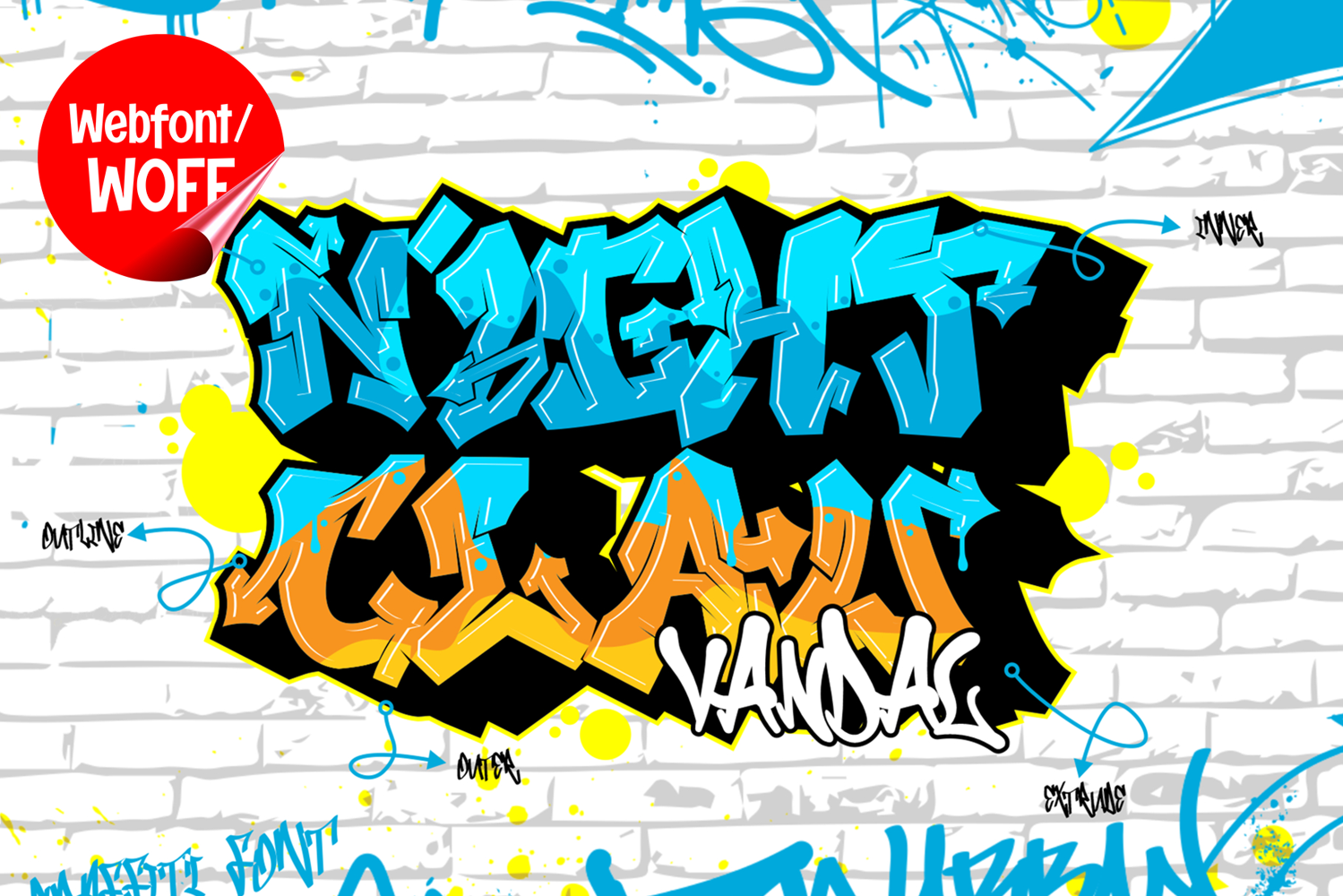
Nightclaw Vandal | Wild Graffiti Webfont for Urban Street
Nightclaw Vandal is a wild graffiti webfont designed to bring raw underground street energy and rebellious urban aesthetics into modern website design. Inspired by wildstyle graffiti, spray-paint murals, and underground tagging culture, this font features aggressive letterforms and dynamic movement that create a bold and eye-catching visual identity. It is an excellent choice for projects that aim to deliver authentic graffiti visuals with strong street-style character and high visual impact.
Nightclaw Vandal includes a complete set of uppercase characters designed with wild graffiti aesthetics. The letterforms feature exaggerated curves, sharp angles, and expressive strokes that create an energetic and rebellious street-art appearance inspired by urban wall murals and freestyle tagging. These characteristics make it ideal for headlines, banners, hero sections, promotional graphics, and featured content where strong urban visuals are needed.
In addition to letters, the font includes numbers and punctuation, allowing flexible usage across various parts of a website. It works well for streetwear branding, gaming websites, music platforms, hip hop projects, esports graphics, and creative portfolios. Each character maintains a consistent wild graffiti style, ensuring a cohesive and unified visual identity throughout the design.
With multilingual support, Nightclaw Vandal includes a wide range of accented characters, making it suitable for international websites and global audiences. This ensures content remains clear and visually consistent across different languages while preserving the expressive and urban graffiti aesthetic.
The wild graffiti style of Nightclaw Vandal makes it especially suitable for urban-themed websites, entertainment campaigns, youth-oriented branding, and creative digital projects. Its aggressive structure and energetic appearance create a powerful street-art atmosphere that helps websites stand out in visually competitive environments. The graffiti-inspired forms add movement, intensity, and authentic underground character while maintaining a modern display style.
Despite its decorative and highly expressive appearance, Nightclaw Vandal is designed with readability in mind. The spacing and proportions are carefully balanced to ensure clarity, particularly in display sizes. This allows designers to use the font effectively for impactful headings and short content without sacrificing usability.
Nightclaw Vandal is a webfont that combines wild graffiti aesthetics with modern digital performance. Its bold forms, expressive movement, and urban character create a distinctive typographic presence that enhances website design. For projects that require a strong, rebellious, and visually engaging graffiti font, Nightclaw Vandal offers a versatile and powerful solution.